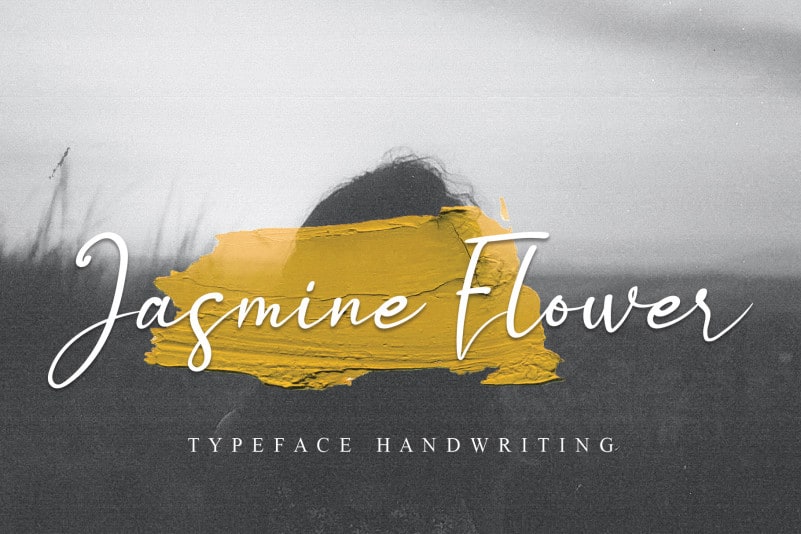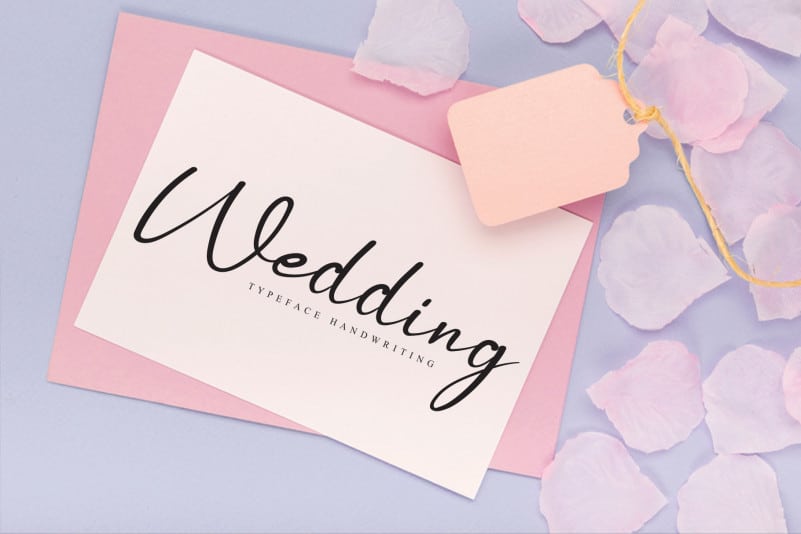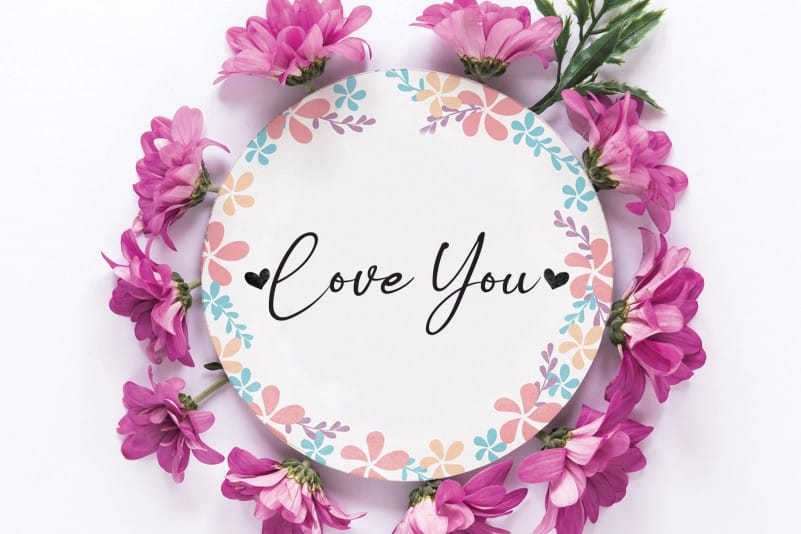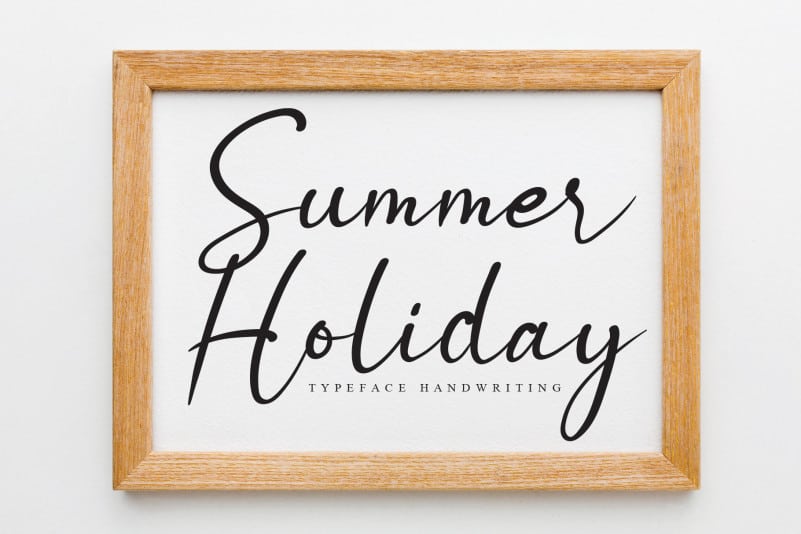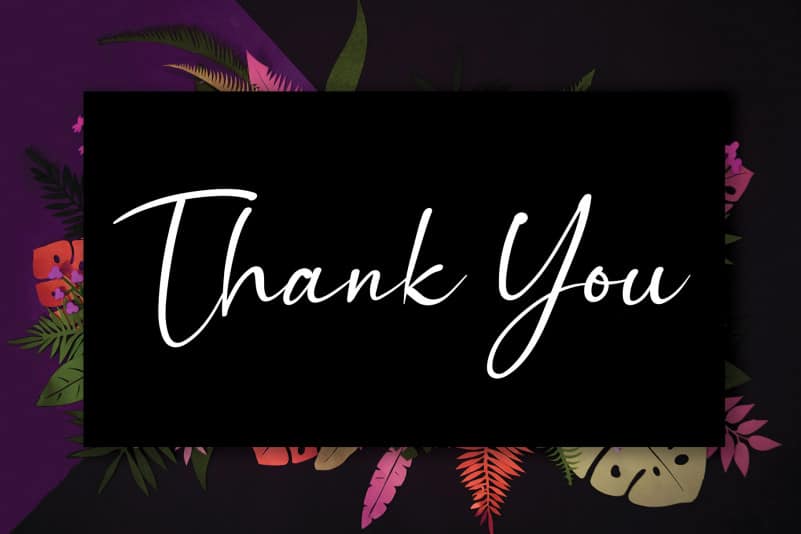
Jasmine Flower Handwritten Font
Jasmine Flower Handwritten Font is a luxurious and soft handwritten font. Cursive and fashionable, this font will be your top choice no matter the topic!